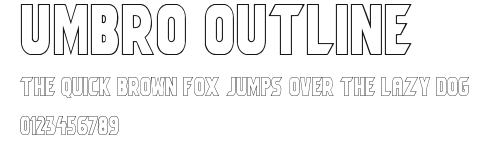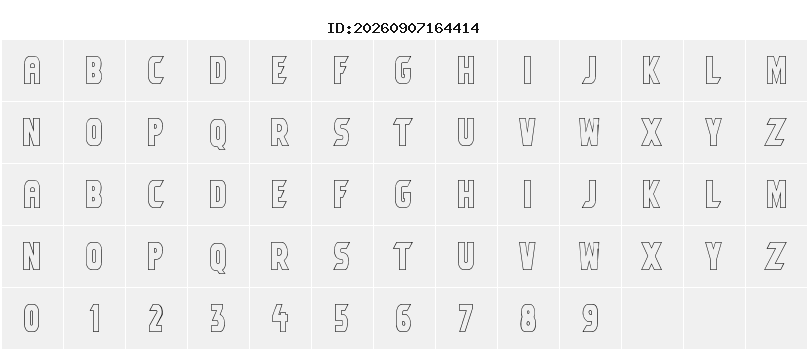
Umbro Outline Preview
• Font Name: Umbro Outline
• Font ID: Umbro Outline:Version 1.00
• Full Font Name: Umbro Outline
• Version: Version 1.00 December 29, 2003, initial release
• PostScript Name: UmbroOutline
• Character Count: 655
• Description: Umbro Outline is created with the Font Creator Program from High-Logic.com
About Umbro Outline.ttf
Umbro Outline.ttf is a modern, elegant sans-serif font designed for ultimate readability and visual harmony. Perfect for branding, headlines, web design, and print materials.